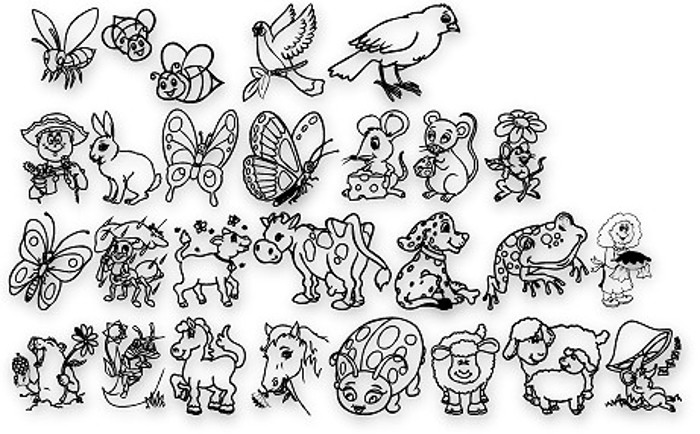
Critters1DC Font
Critters-1 is my own creation and was made by utilizing
a coloring book that was purchased for my Granddaughter.
It is a SUPER-CUTE set of dingbats!